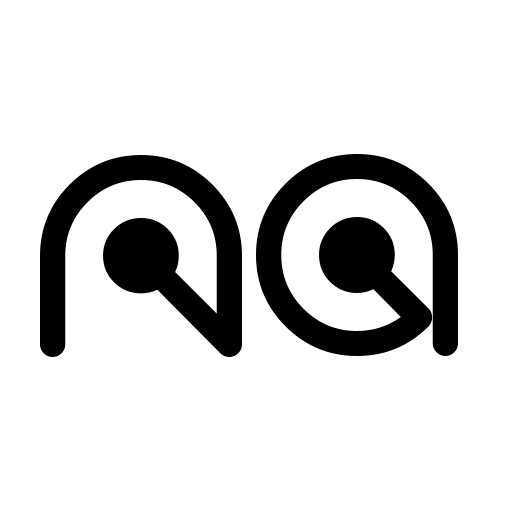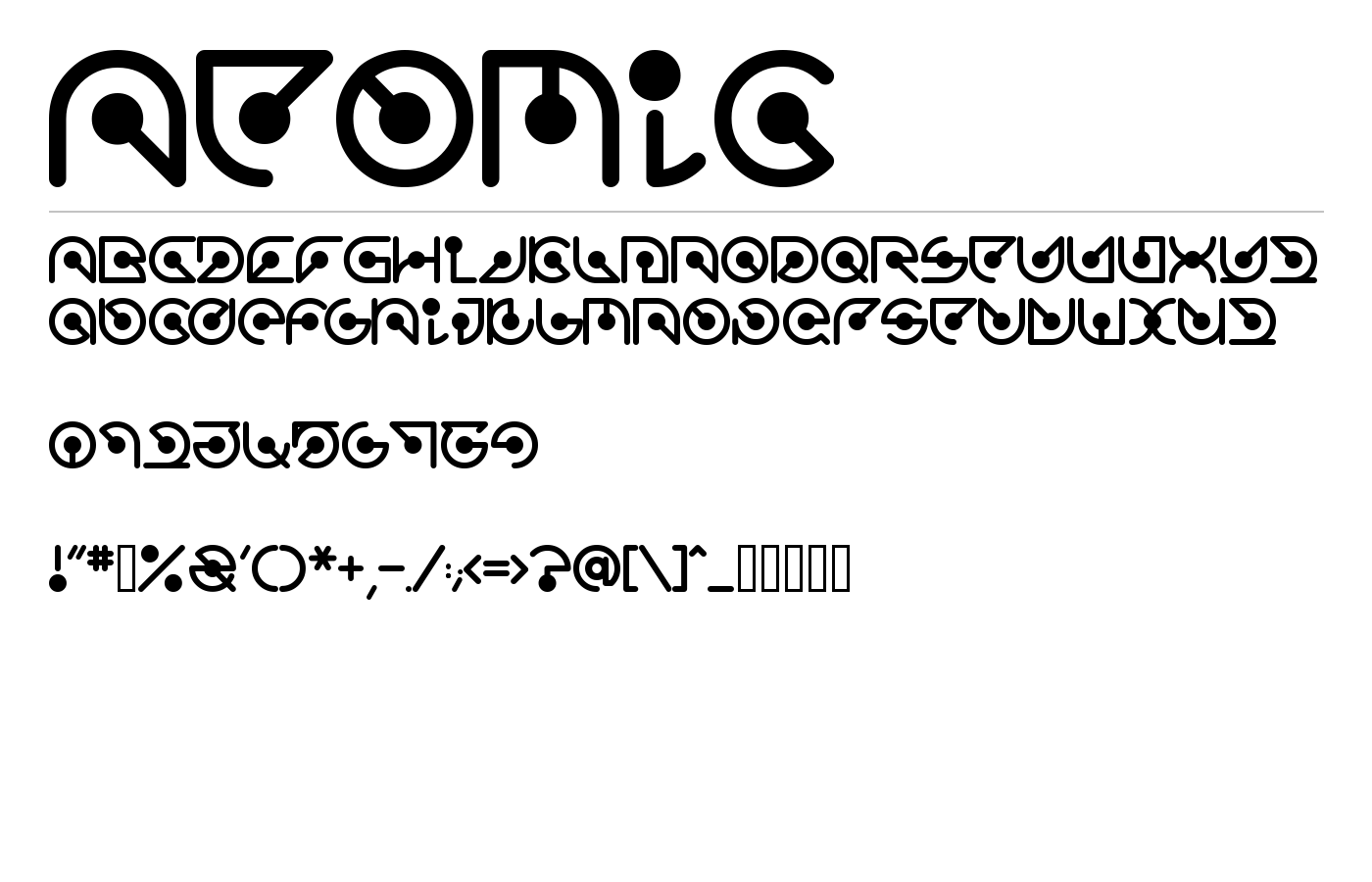
Atomic Font is a futuristic and geometric sans serif typeface characterized by its bold weight, rounded edges, and unique circular motifs integrated into each letter. Its playful, tech-inspired design makes it perfect for eye-catching logos, modern branding, and creative projects seeking a distinctive, cutting-edge look. This font works best in large display settings where its intricate style can truly stand out.
Atomic Font